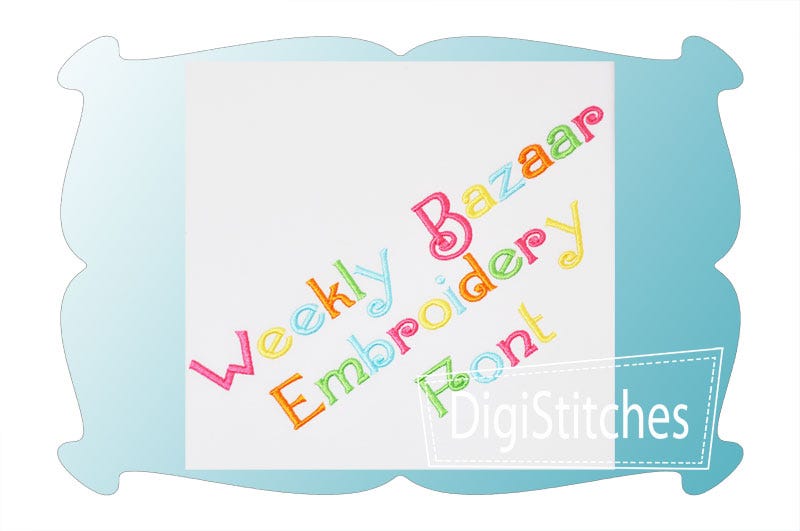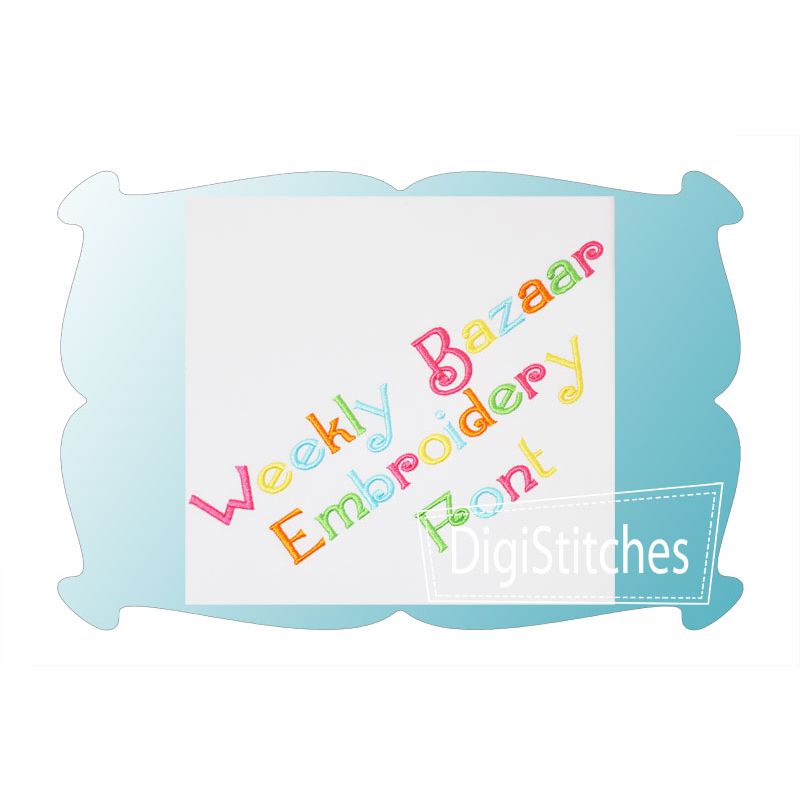
Weekly Bazaar Satin Stitch Embroidery Font
Weekly Bazaar Embroidery Font
Weekly Bazaar is an embroidery font with just enough curl to be cute.
Featuring super bold letters that really stand out on t-shirts and projects.
Girls are of all ages will love this font!